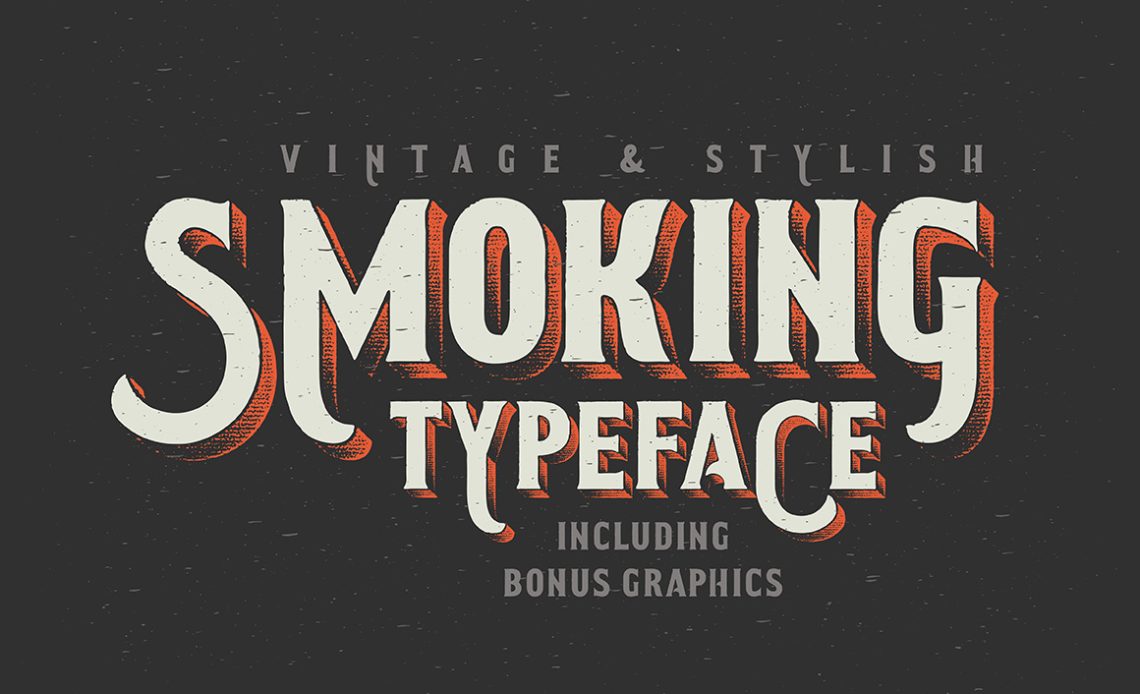
Looking for a font that is bold, vintage, and versatile? Look no further than Smoking Typeface Font! Created by the talented designer Gleb Guralnyk, this font is a must-have for anyone looking to add a touch of the old west to their design projects.
Smoking Typeface Font is a display font, perfect for catching the eye of your audience. It's ideal for use in headings, logos, posters, badges, invitations, and more. With its rugged, western-inspired design, this font is sure to make your message stand out.
One of the best things about Smoking Typeface Font is its versatility. It can be used for a wide range of projects, from rustic wedding invitations to edgy band posters. No matter what your design needs are, this font can help you achieve the perfect look.
In addition to its striking appearance, Smoking Typeface Font is also keyword-rich, making it a great choice for SEO-minded designers. With its vintage style and rugged character, this font is sure to make an impact on your audience.